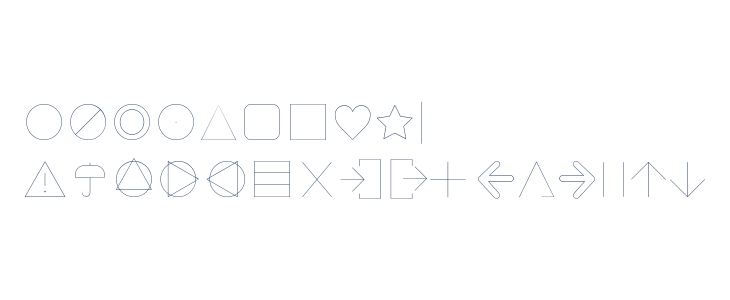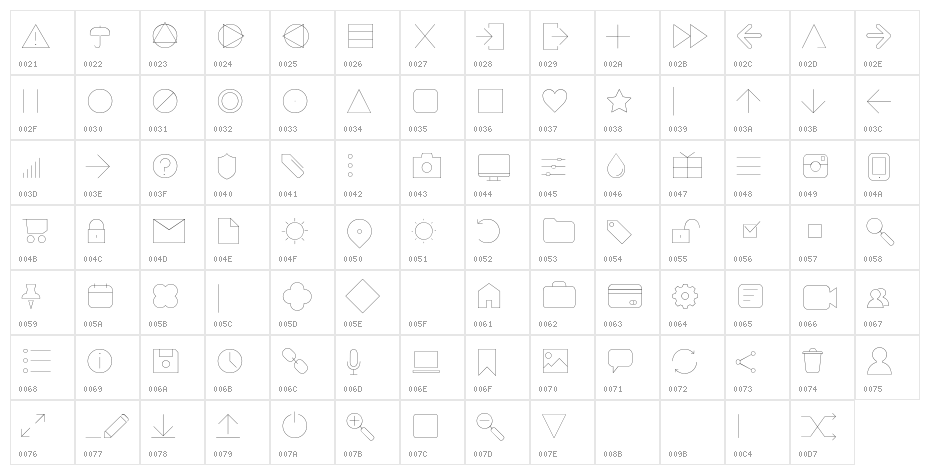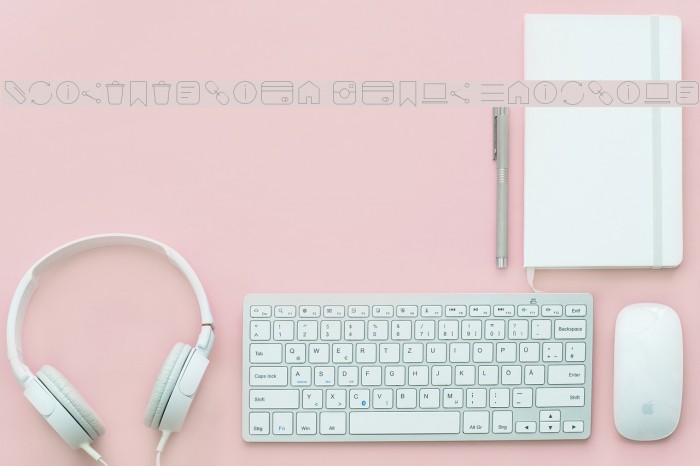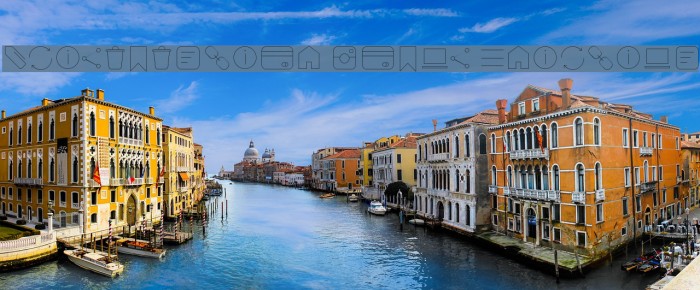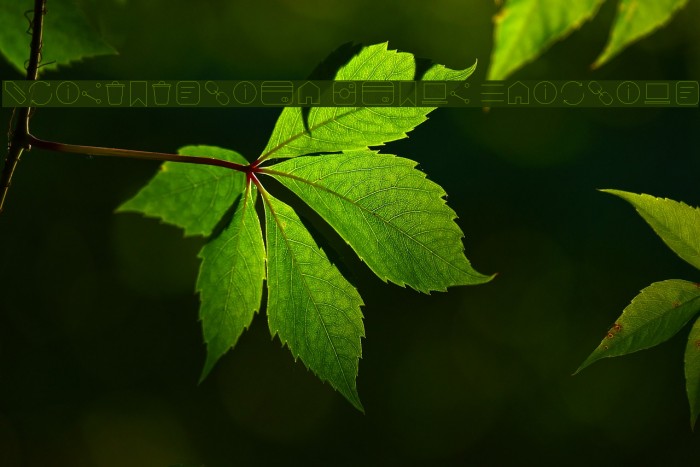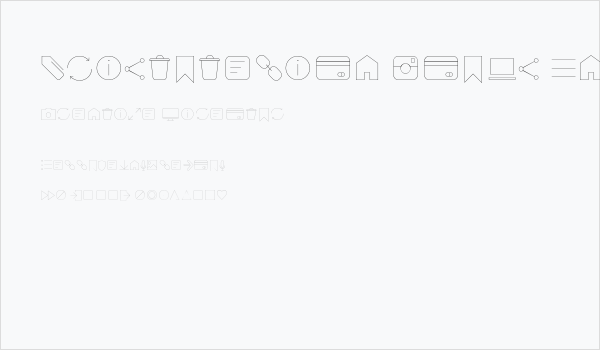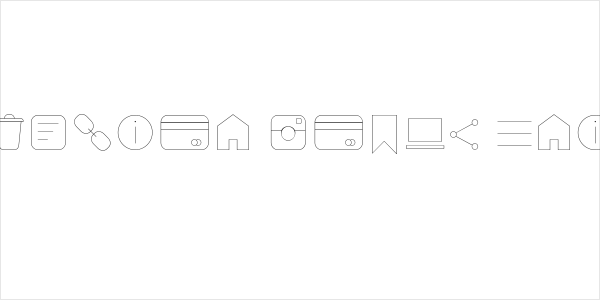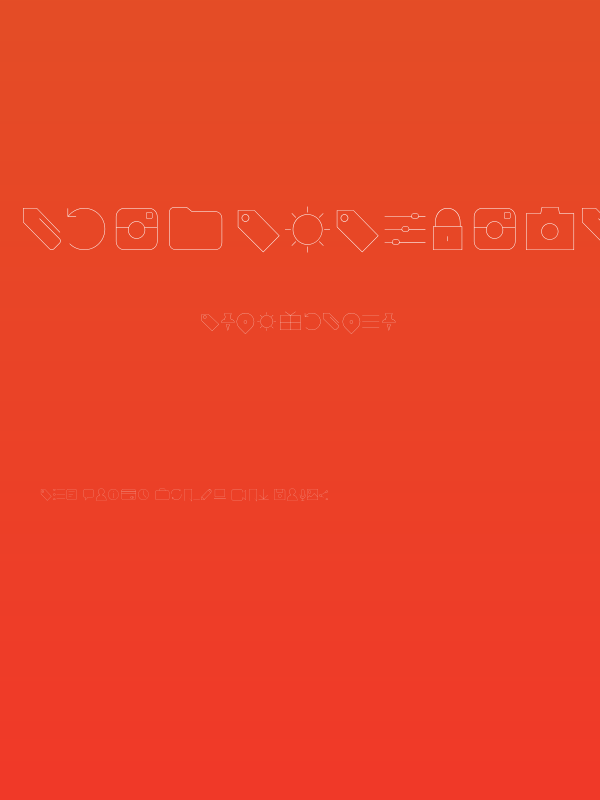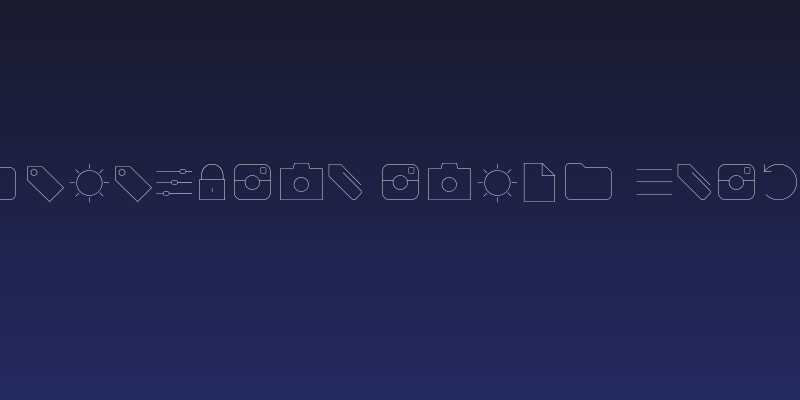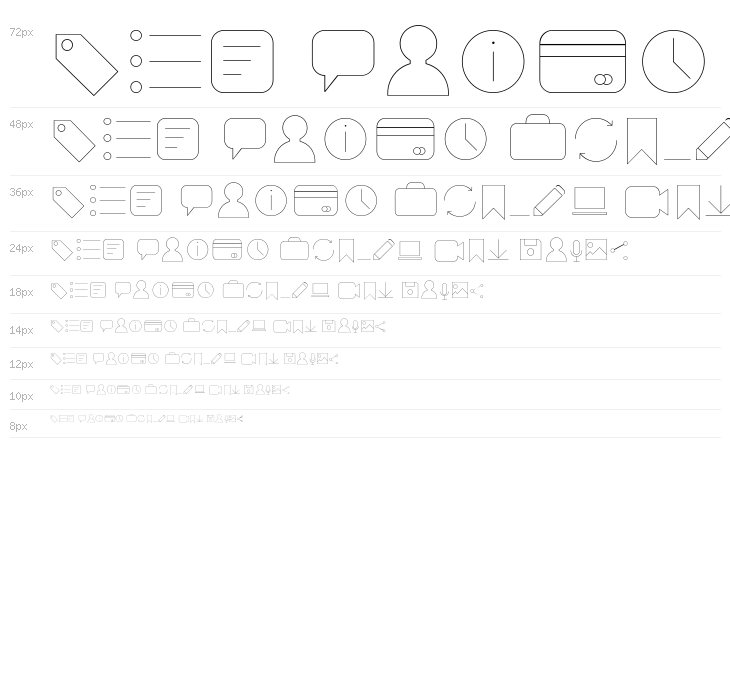
Aristotelica Icons Hairline Font
Aristotelica Icons Hairline Description
A minimalist, ultra-thin line icon set with geometric shapes and consistent stroke width, featuring a wide range of common user interface symbols. The icons are open, airy, and highly legible, with a modern and neutral appearance suitable for digital interfaces.
| Overall Style | Modern, Minimalist |
| Use Case | Icons, UI elements, navigation, toolbars |
| Proposed Projects | Mobile apps, web interfaces, dashboards, wireframes, modern branding, infographics. |